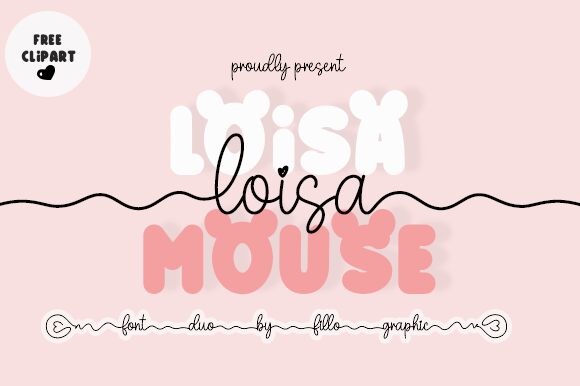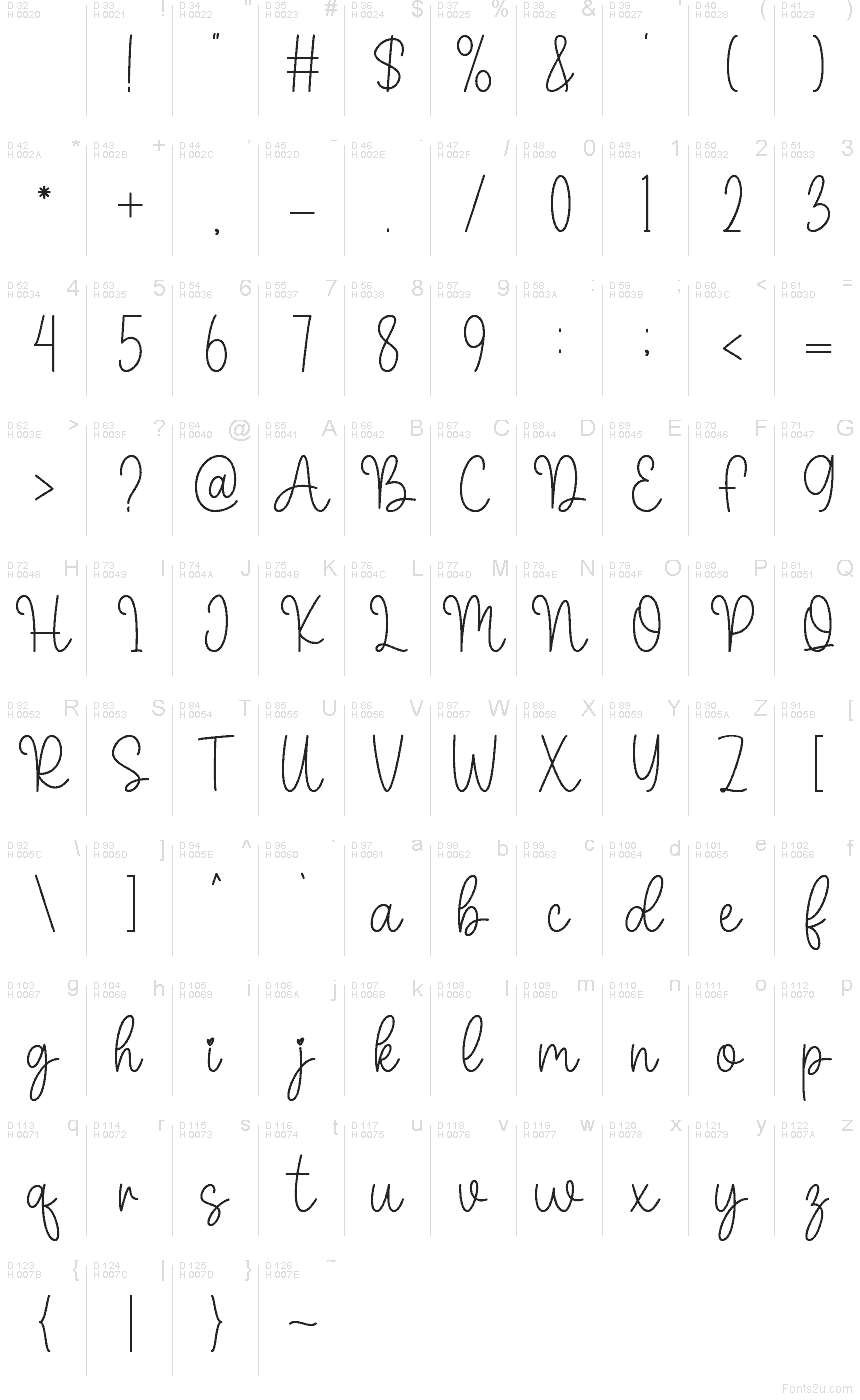
Loisa
Loisa font by Fillo Graphic is a free handwritten typeface that captures the feeling of a careful note in a scrapbook. Its looping strokes, airy curves, and tiny heart accent give it a soft, affectionate energy that feels personal rather than polished. The lines are smooth and even, so it reads clearly while still looking playful and warm.
Using Loisa, you can bring a cozy, romantic touch to wedding invitations, save-the-dates, baby announcements, Instagram quotes, greeting cards, and packaging for handmade goods. This free font shines at medium to large sizes where its curls and heart details can breathe. Pair it with a clean sans serif for body text to keep layouts sweet but not sugary.